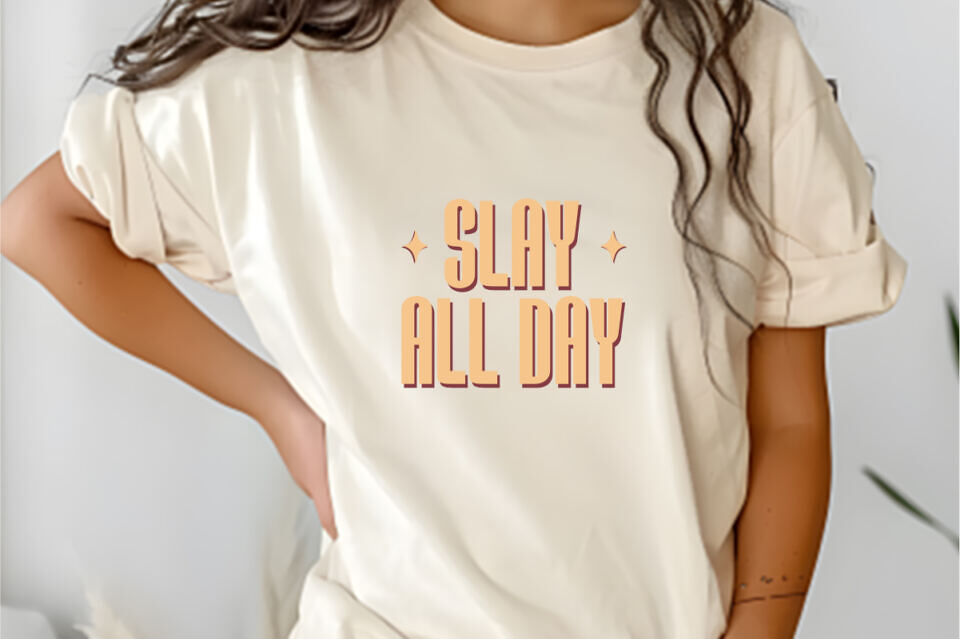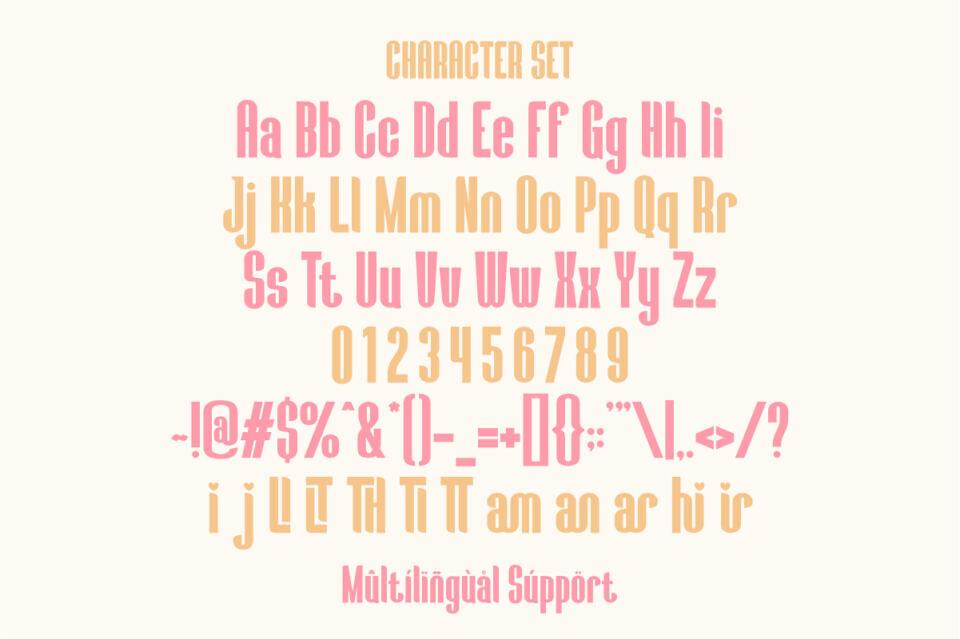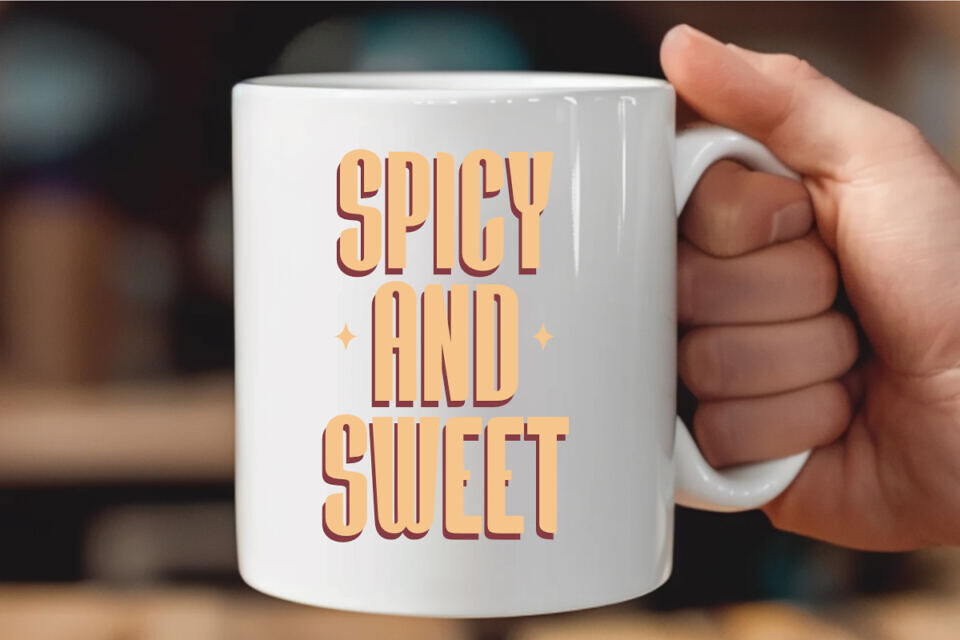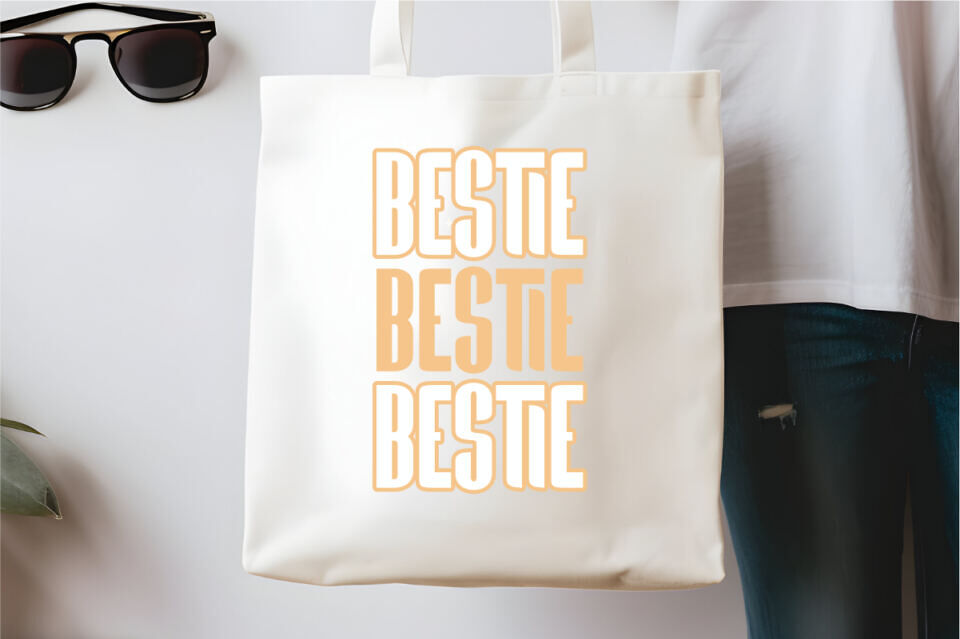
Sassy Bestie Font
Sassy Bestie is the ultimate display font for those who like their designs with a side of sarcasm. With its bold, playful, and unapologetically extra vibes, this font is made for crafting those hilariously passive-aggressive quotes that scream “I said what I said.”
Perfect for mugs that say “I’m not arguing, I’m just right,” shirts that declare “Professional Overthinker,” or tote bags with “Too Tired to Care.” Whether you’re designing for the snarky teacher, the tired mom, or the bold bestie — this font adds that extra sass your sarcastic designs need to stand out.